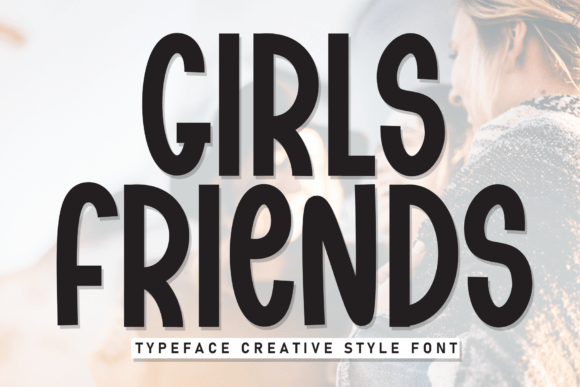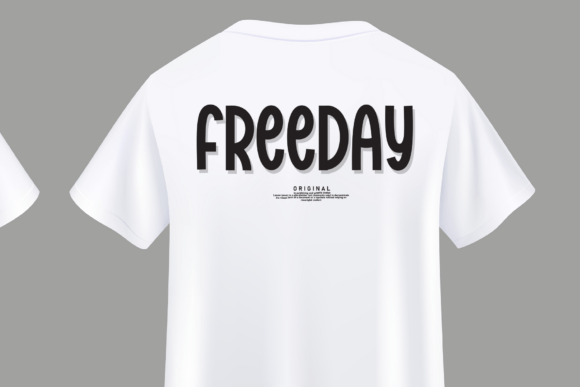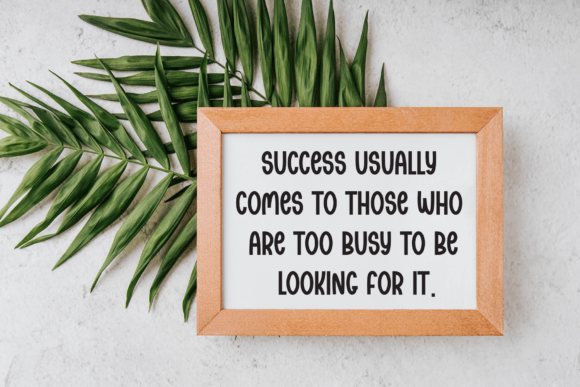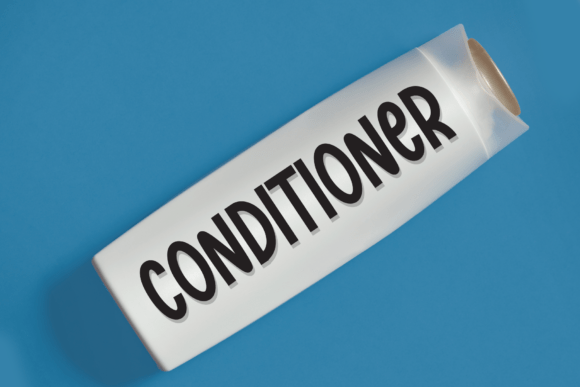
Girls Friends Font
About the Girls Friends Font
Crafted with precision, the Girls Friends Font is ready to bring your ideas to life. A display font is a typeface designed to stand out and capture attention, making it perfect for headlines, posters, logos, packaging, and branding. Often bold, artistic, or highly stylized, display fonts add personality and visual impact to any design, helping to set the tone and mood with a strong typographic presence.
Girls Friends Font is best suited for headlines, short taglines, and branding applications where a friendly, approachable feel is desired. Its playful yet legible forms work well on posters, social media graphics, and packaging for products targeting a young, female demographic. Avoid using it for body copy or lengthy text; its decorative nature reduces readability at smaller sizes.
Pairing Girls Friends Font with a clean sans-serif like Open Sans for body text creates a balanced contrast. For a more sophisticated look, consider a classic serif such as Garamond or a geometric sans-serif like Futura. These pairings allow Girls Friends Font’s playful energy to shine while maintaining overall visual harmony.
The font’s core personality is undeniably friendly and approachable, making it a great choice for brands focused on inclusivity and connection. Its slightly rounded forms and open letterforms convey a sense of warmth and approachability, while still retaining enough boldness for visual impact.
Girls Friends Font Usage Examples
Girls Friends Font Example